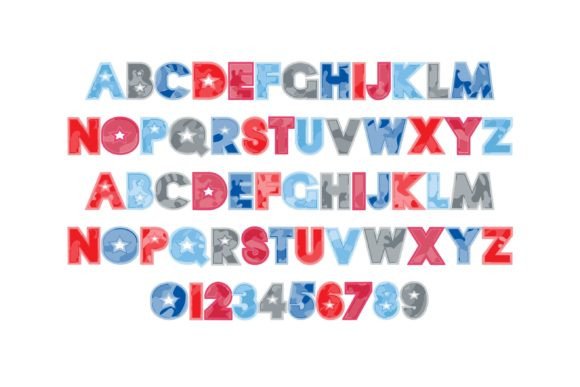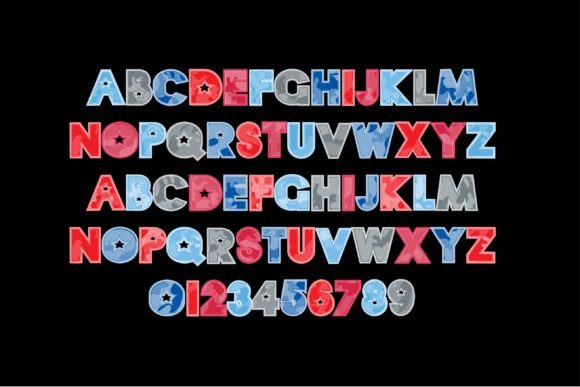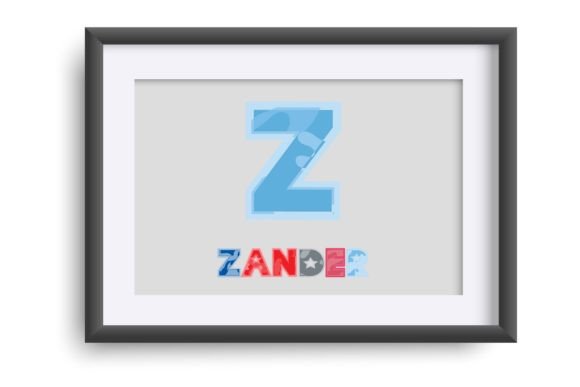
Camo Patriot Font
This full-color font features a patriotic style camo print. There is an alt case w/ additional colors you can access through your system or Silhouette’s glyph map. This font works best for titles, displays, posters and more. Please note color fonts will show as black in non compatible programs. This font type is compatible with Silhouette Studio.OpenType full-color (SVG) fonts are installed like any normal .otf font is installed. This usually happens via FontBook for Mac users or via your preferred font manager or Control Panel in Windows. Please note color fonts will show as black in non-compatible programs. They often show as black when choosing the font in the preview window in programs that support color fonts. You will know if your program can support color fonts when you type on the document and see them in color. Adobe products, Silhouette Studio, Quark, and Inkscape, amongst others, support full-color SVG fonts at this time.Full-color SVG fonts are the perfect way to add a touch of personality to your designs. With a full range of colors and styles to choose from, you can create anything from simple text logos to complex illustrations. Plus, SVG fonts are vector-based, so they can be scaled to any size without losing quality.Here are some of the benefits of using full-color SVG fonts: They are versatile and can be used for a variety of projects, from logos and branding to web design and print.They are scalable, so you can use them for any size project.They are high quality and will not lose their resolution when scaled.They are easy to use and can be installed in any software that supports SVG fonts.If you are looking for a versatile, high-quality font that can be used for a variety of projects, then a full-color SVG font is the perfect choice for you.